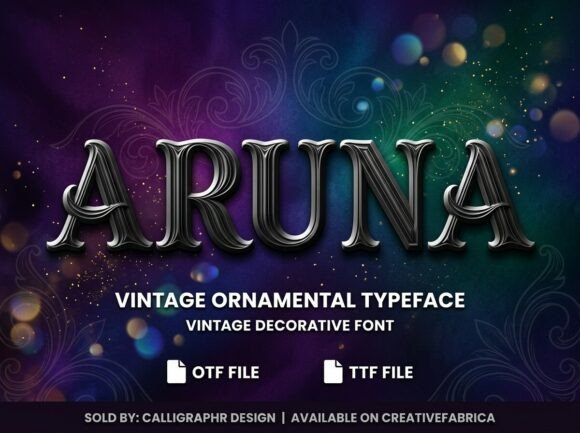
The Regal Charm of Aruna Font: Elevate Your Designs with Vintage Elegance
I’ll never forget the design project that had me on the hunt for the perfect font. I was working with a craft distillery to create a brand identity that exuded luxury, heritage, and a touch of sophistication. The client wanted a logo that would transport their customers to a bygone era, but with a modern twist. After scouring font libraries and marketplaces, I stumbled upon Aruna – a majestic display serif that instantly captured the essence of what I was looking for.
First Impressions: A Love Affair with Aruna
Aruna’s classic, high-contrast letterforms immediately drew me in. The rhythmic, hand-drawn “inline-and-engraved” textures and elegant swirling swashes seemed to bridge the gap between 19th-century letterpress art and modern premium branding. I was sold! Here’s what I love about Aruna:
- ✨ Vintage-and-venerable soul: Aruna’s unique character is reminiscent of traditional letterpress art, evoking a sense of history and tradition.
- ✅ High-impact legibility: The font’s heavy structural weight and clear letterforms make it perfect for display purposes, from logos to social media headers.
- ✨ Elegant swashes and flourishes: Aruna’s swirling swashes add a touch of sophistication and luxury to any design.
- ✅ Premium branding feel: Aruna’s prestigious personality makes it an excellent choice for high-end brands, boutique heritage shops, and artisanal labels.
While Aruna is an exceptional font, there are a few things to keep in mind:
- 🤔 Limited use cases: Due to its display-focused design, Aruna might not be the best choice for body text or extensive paragraphs.
- ⚠️ Requires careful kerning: As with any font, especially those with intricate details, kerning and letter spacing may require attention to ensure optimal readability.
The Story Behind Aruna
Aruna’s design inspiration stems from the rich history of letterpress art and the elegance of traditional typography. Imagine a master typographer, pouring over vintage specimens and letterpress artifacts, seeking to create a font that would capture the essence of a bygone era. With Aruna, the goal was to craft a font that would evoke a sense of luxury, heritage, and sophistication, while still feeling modern and premium.
| What is Aruna’s primary use case? | Aruna is designed for display purposes, making it perfect for logos, social media headers, and boutique brand identities. |
| Is Aruna suitable for body text? | While Aruna is an exceptional font, its high-contrast design and intricate details make it less suitable for extensive body text. |
| Does Aruna support OpenType features? | Yes, Aruna supports OpenType features, including glyphs, swashes, and stylistic alternates, allowing for a high degree of customization and creative expression. |